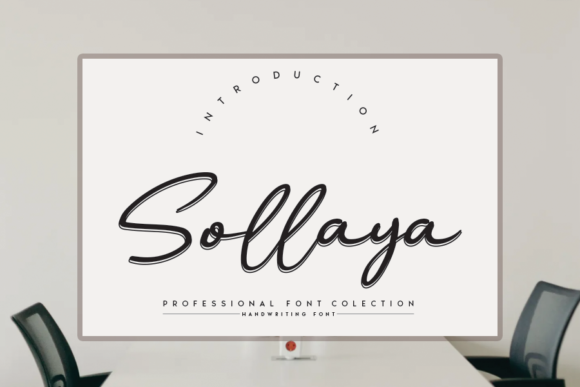
Sollaya Font: Elevating Web Design with Elegant Script
Testing Sollaya in a Boutique E-Commerce Hero Section
When I first integrated Sollaya into a recent boutique e-commerce project, my primary goal was to find a typeface that balanced artistic flair with digital functionality. As a web designer constantly evaluating Script Handwritten styles for commercial use, I needed to verify if this specific font could handle the demands of a high-conversion hero section without sacrificing load speed or legibility. The initial mockup featured a full-width lifestyle image with a headline overlaid in white text, and this is where the true character of premium Fonts like this one gets tested. Unlike rigid display typefaces, Sollaya brought an organic rhythm to the layout that immediately softened the transactional nature of the online store.
The visual impact was instant, but the practical application required careful adjustment. In the hero area, I utilized the largest available weight to ensure the flowing lines remained crisp against a complex photographic background. What stood out during this testing phase was how the distinct letterforms created a natural focal point above the fold. For digital product creators, this is crucial; you have mere seconds to capture attention, and the elegant touch of this handwritten style guides the user’s eye toward the value proposition more effectively than standard sans serif headers often do. It transformed a generic "Shop Now" banner into a curated brand experience that felt personal and intentional.
Optimizing Readability for Mobile Landing Pages
Responsive design is where many decorative typefaces fail, but assessing Sollaya on mobile viewports revealed its thoughtful construction for modern screens. When designing a coaching website landing page, I had to ensure that the Script Handwritten aesthetic didn't become illegible when scaled down for smartphone users. My approach involved setting strict minimum font sizes and adjusting line-height specifically for the script elements. On a 375px wide screen, the flowing connections between characters can sometimes blur, so I tested various breakpoints to maintain clarity. The result was a mobile interface where the headlines remained distinct and inviting, proving that artistic Fonts can coexist with rigorous UX standards.
I also paid close attention to contrast ratios during this mobile optimization phase. Using Sollaya over light backgrounds required a darker ink color to meet accessibility guidelines while preserving the font's delicate stroke width. Conversely, on dark mode sections of the course sales page, I increased the letter-spacing slightly to prevent the intricate details from getting lost in the negative space. This level of micro-typography is essential for maintaining professionalism. A beautiful font that becomes unreadable on an iPhone destroys trust, but when tuned correctly, Sollaya enhances the user journey by providing visual warmth that encourages scrolling and engagement rather than frustration.
Pairing Sollaya with Sans Serif Fonts for Brand Identity
Creating a cohesive digital brand kit requires mastering the art of font pairing, and Sollaya serves as an exceptional anchor when matched with clean geometric sans serifs. During a portfolio homepage redesign, I experimented with combining this expressive script with neutral body copy to establish a clear visual hierarchy. The key is contrast; because Sollaya possesses such a distinct and timeless style, the supporting typography must be understated to avoid visual competition. I found that using a simple, high-x-height sans serif for paragraphs allowed the script headlines to breathe, creating a sophisticated editorial look that elevated the entire site architecture.
- Hero Titles: Use Sollaya at large scales (4rem+) for maximum impact and legibility.
- Body Copy: Stick to highly readable sans serifs like Inter or DM Sans to balance the decorative header.
- Accent Elements: Utilize the font for pull quotes, testimonial signatures, or limited-time offer badges.
- Navigation: Avoid using script fonts in main menus; reserve Sollaya for dropdown highlights or cart icons only.
This strategic pairing extends beyond just aesthetics; it directly influences scanning behavior. Users typically scan web content in F-patterns or Z-patterns, and the unique texture of Sollaya acts as a visual interrupter that resets attention. When I applied this pairing strategy to a digital product launch page, the distinction between the emotional hook (the script headline) and the logical details (the sans serif features list) became instantly apparent. This separation helps potential customers process information faster, reducing cognitive load and making the path to purchase feel smoother and more intuitive.
Implementing Elegant Typography in Course Sales Pages
Selling digital products requires building immense trust through design, and incorporating Sollaya into a course sales page added a layer of authenticity that stock photography alone cannot achieve. As I built out the curriculum section, I used the font to highlight module titles and key learning outcomes. The elegant touch described in the product details translated perfectly to an educational context, suggesting that the content within was crafted with care and expertise. However, I was mindful not to overuse it; treating the script as a precious accent rather than a workhorse ensured that the page remained scannable and conversion-focused.
Technical implementation also played a significant role in this project. Before deploying the font live, I verified the file formats and webfont availability to ensure fast rendering across different browsers. Modern WOFF2 files kept the payload light, which is critical for SEO and Core Web Vitals. I also explored the included alternates and ligatures to customize specific headings, preventing repetitive letter shapes from looking monotonous in longer sections. For creative entrepreneurs and SaaS founders, these small typographic nuances signal quality. When a visitor sees that even the typography has been considered with such detail, their perception of the product's value increases subconsciously.
Beyond licensing, the technical versatility of Sollaya makes it a reliable asset for diverse digital applications. Whether I am designing a promotional Instagram story template or a high-ticket consulting landing page, the font maintains its integrity across mediums. Its timeless style means it won't look dated in six months, protecting the longevity of the brand identity investment. For web designers and digital creators, choosing a typeface is ultimately about solving communication problems. Sollaya solves the problem of sterility in digital spaces, offering a human connection that resonates with users while meeting the rigorous demands of modern web development. By respecting both its artistic nature and technical requirements, you can create spectacular digital experiences that convert visitors into loyal community members.